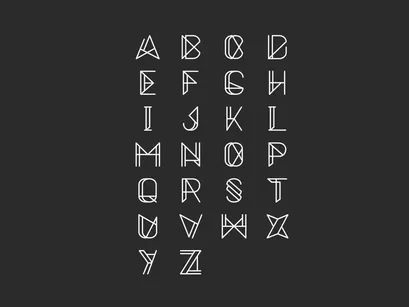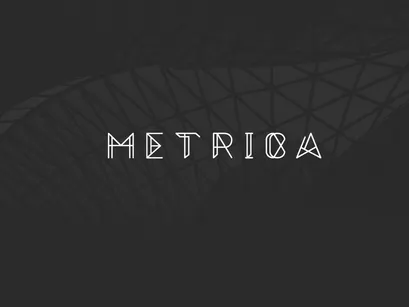
Metrica-Regular
Metrica font is a new uppercase, sharp and mechanical typeface. Inspired by architecture, Metrica font is designed with a flat, geometric design – made free for personal use (commercial upon request). Using influences from perceptive views from building designs, I wanted something very striking and instantly recognisable.